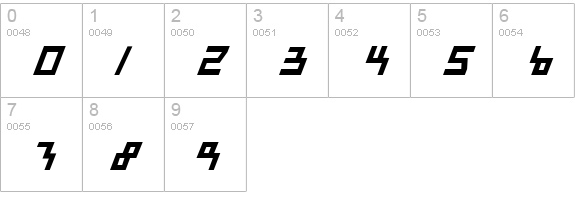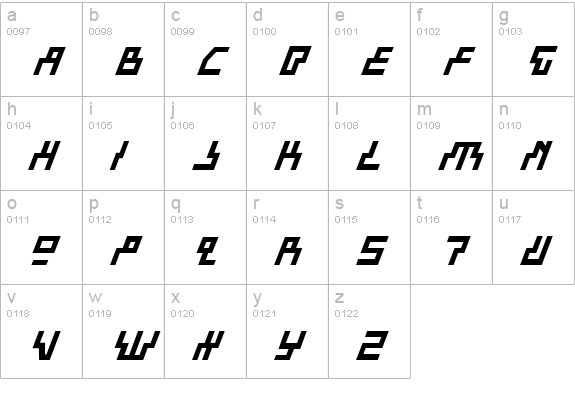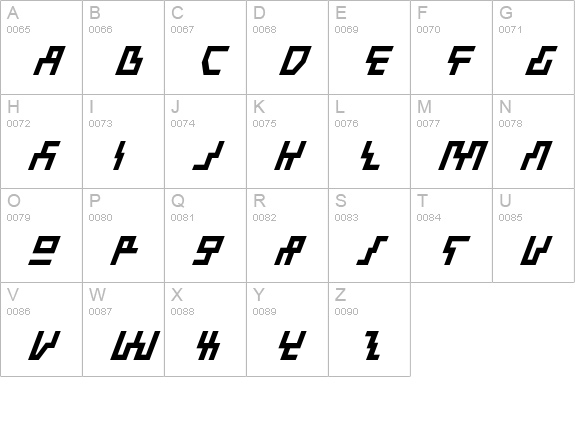
Beam Rider Bold Italic is a strong, high-contrast, italic variant in the Beam typeface family \xE2\x80\x94 well suited to headlines, attention-grabbing titles, and strong calls-to-action.
Introducing Beam Rider Bold Italic font, a sleek and modern typeface that exudes energy and sophistication. This dynamic font is perfect for making a bold statement in your designs, whether for branding, marketing materials, or creative projects. The italicized style adds a touch of elegance and flair, making your text stand out with a sense of movement and personality. Beam Rider Bold Italic font is the perfect choice for those looking to add a touch of boldness and creativity to their projects. Its unique design captures attention and sets a dynamic tone for any text. Whether you're designing a poster, logo, or website, Beam Rider Bold Italic font is sure to make a lasting impression. Best of all, Beam Rider Bold Italic font is completely free to download at FontsMarket.com. This means you can easily access and use this stylish font in your projects without any cost. Don't miss out on the opportunity to elevate your designs with the striking appeal of Beam Rider Bold Italic font. Download it now and let your creativity soar!